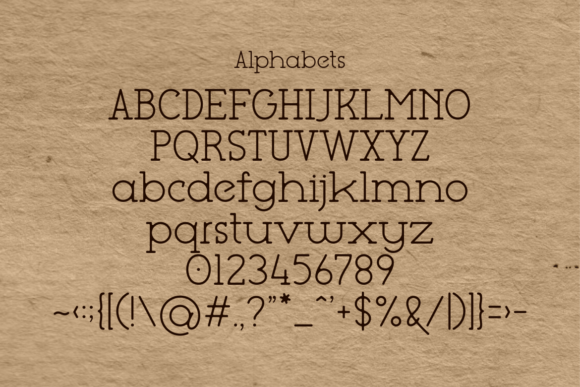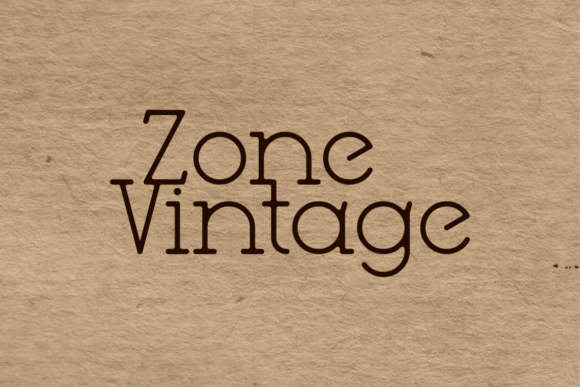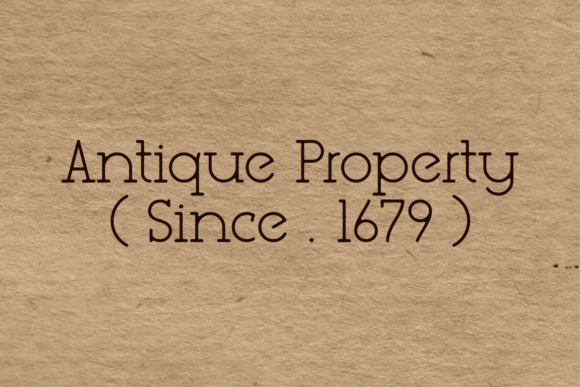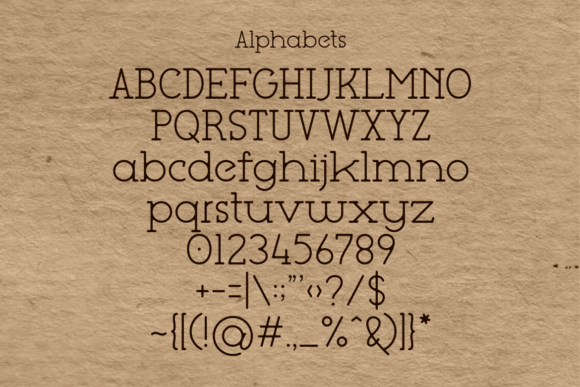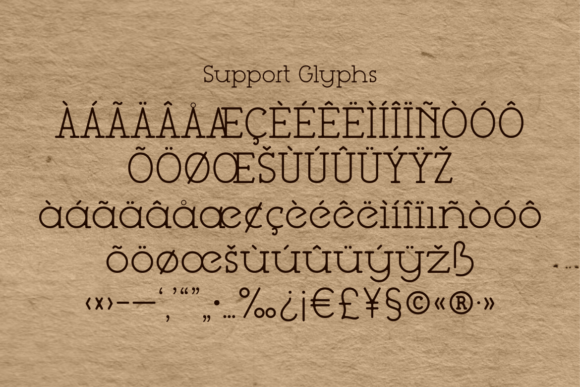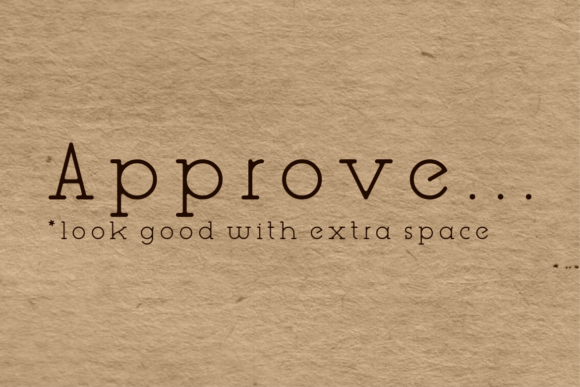
When Creativity Meets Revival: The Power of Be Type Reborn Font
Have you ever been stuck in a creative rut, searching for that perfect font to elevate your design? The moment of inspiration can be fleeting, but what if you stumbled upon a font that not only breathes new life into your work but also pays homage to the classics?
Enter Be Type Reborn Font, a masterful combination of monoline fonts wrapped in a serif form, creating a unique and captivating visual experience. This font is designed to transcend time, effortlessly pairing vintage charm with modern flair. Its versatility makes it an ideal choice for a wide range of applications, from product packaging and invitations to quotes and logos. With Be Type Reborn Font, designers can tap into a new world of creative possibilities, reinvigorating their designs with a touch of nostalgia and sophistication.
Key Features of Be Type Reborn Font
- Font Family: Be Type Reborn is a serif font family that offers a classic and elegant look, suitable for a wide range of applications, including body text, headings, and titles.
- Unique Characteristics: Be Type Reborn features a distinctive x-height, subtle flair on the terminals, and a refined, elegant feel that sets it apart from other serif fonts.
Be Type Reborn Font Review
Overall, I think Be Type Reborn is a solid font that could be a great addition to any design project. Here’s what I like about it:
- ✨ Unique blend of modern and vintage styles – Be Type Reborn combines the best of both worlds to create a truly distinctive look.
- ✨ High level of versatility – this font works well for both body text and headlines, making it a great choice for a wide range of applications.
- ✨ Excellent legibility – the font is easy to read, even at smaller sizes, which is a must for any font.
However, there are a few limitations that I think are worth mentioning:
- ⚠️ Limited language support – while Be Type Reborn includes a wide range of characters, it may not be suitable for projects that require a high level of language support.
- ⚠️ Some users may find the font too bold or overpowering – while I think the font is great, I can see how it might be overwhelming for some designs.
Overall, I think Be Type Reborn is a great font that’s worth considering for your next design project. While it may have a few limitations, its unique style and high level of versatility make it a great choice for a wide range of applications.
For the best results, use Be Type Reborn font for titles, headings, and body text where you want to create a modern and elegant look.
- Business cards and branding materials
- Food and restaurant menus